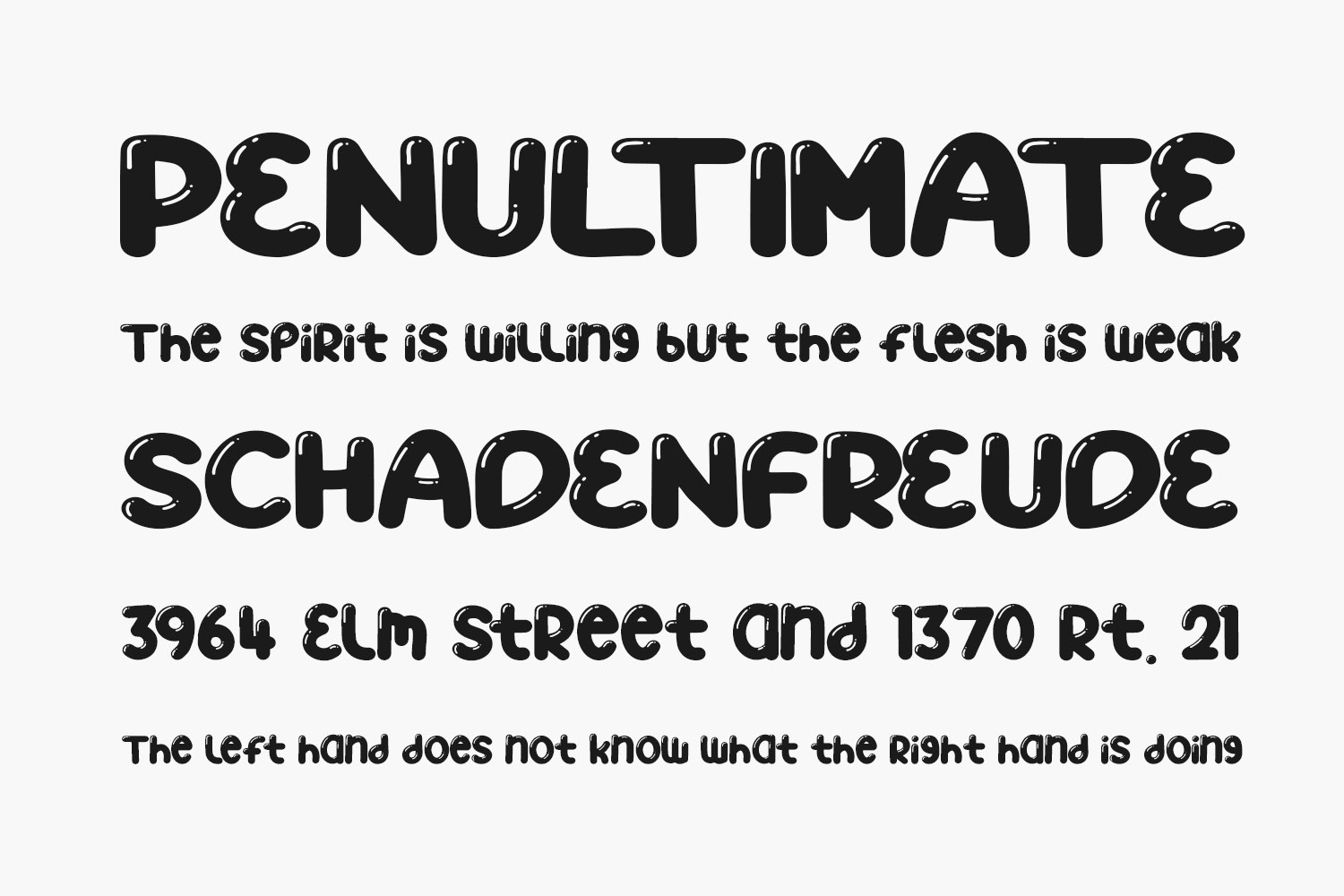
Balloon Dreams is a cool, bubbly, and fun display font. It embodies playfulness and authenticity and is the perfect choice for any children’s activity or school project. Balloon Dreams Free Font was designed by Perspectype Studio and is free for personal use only. Please purchase the full version for commercial use.